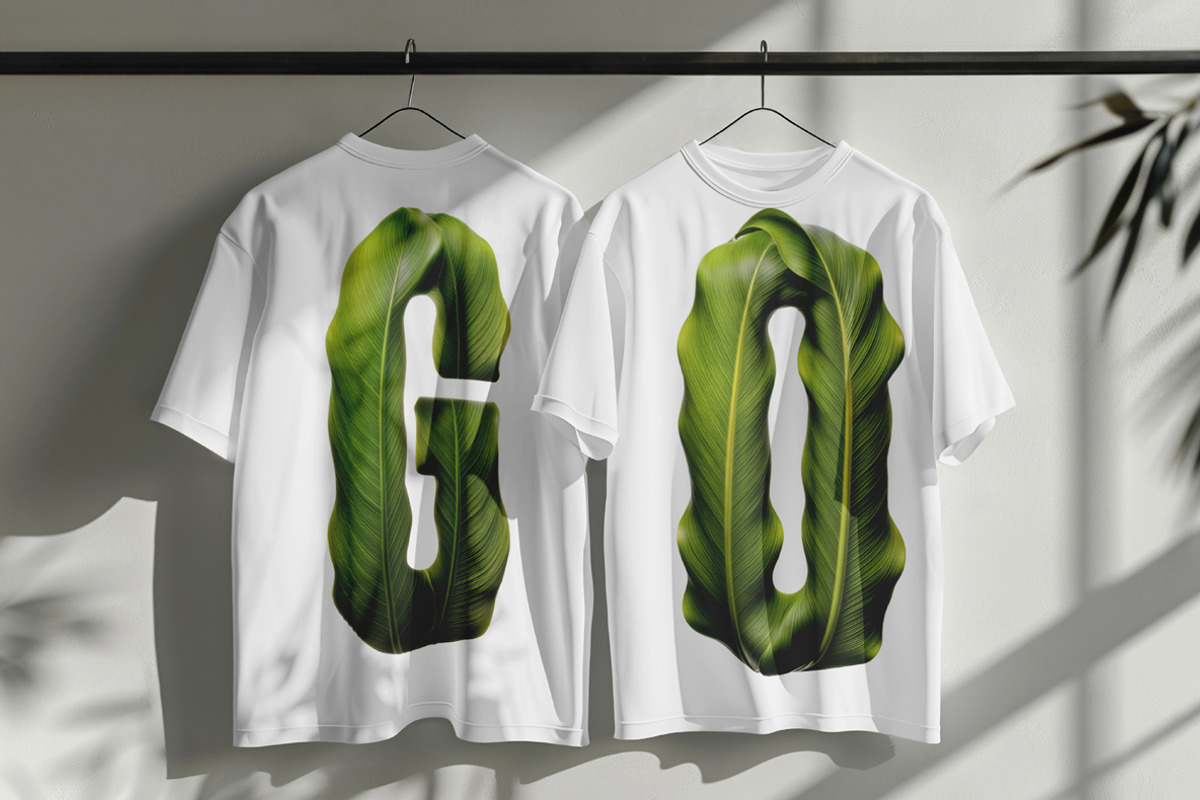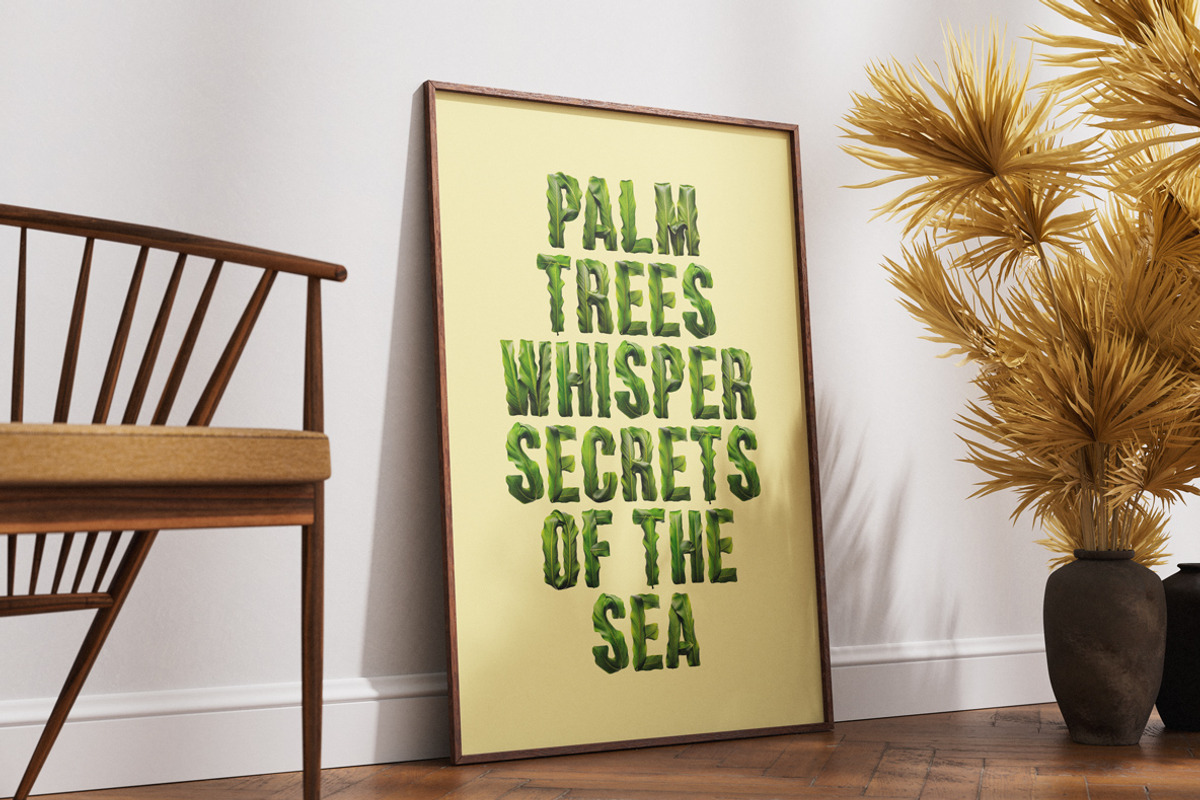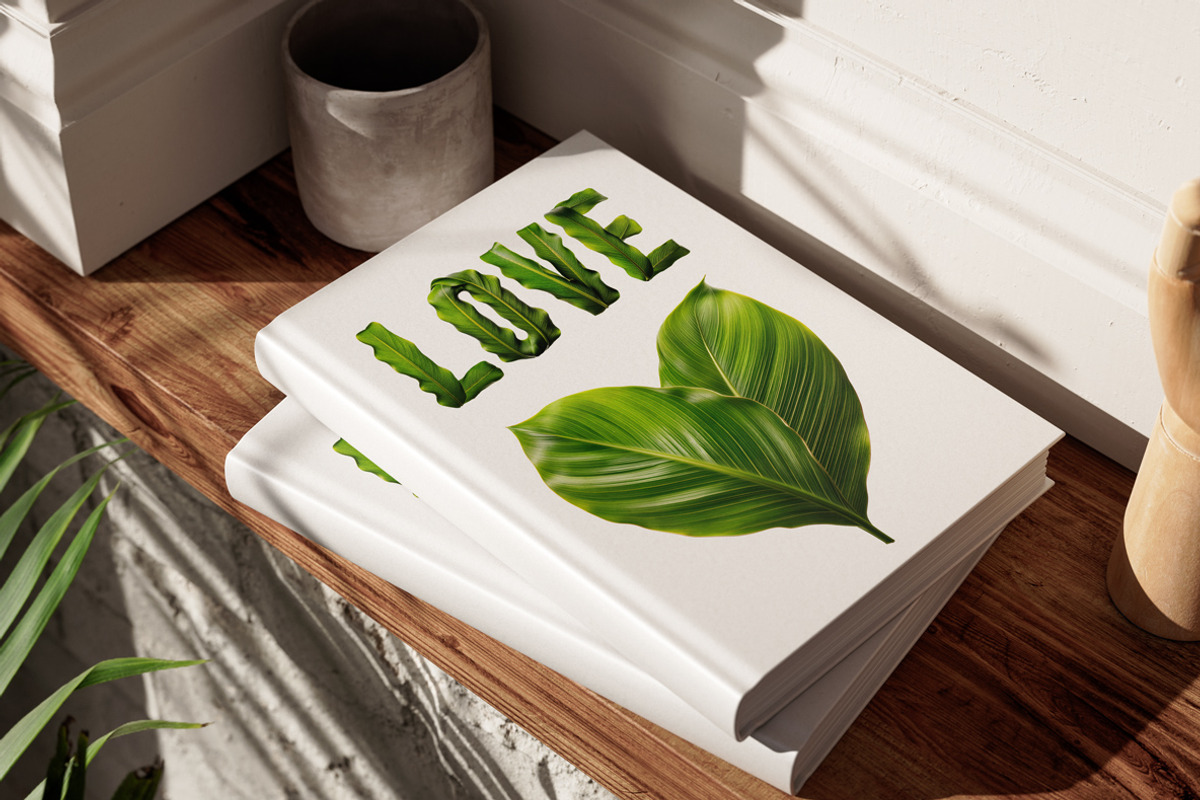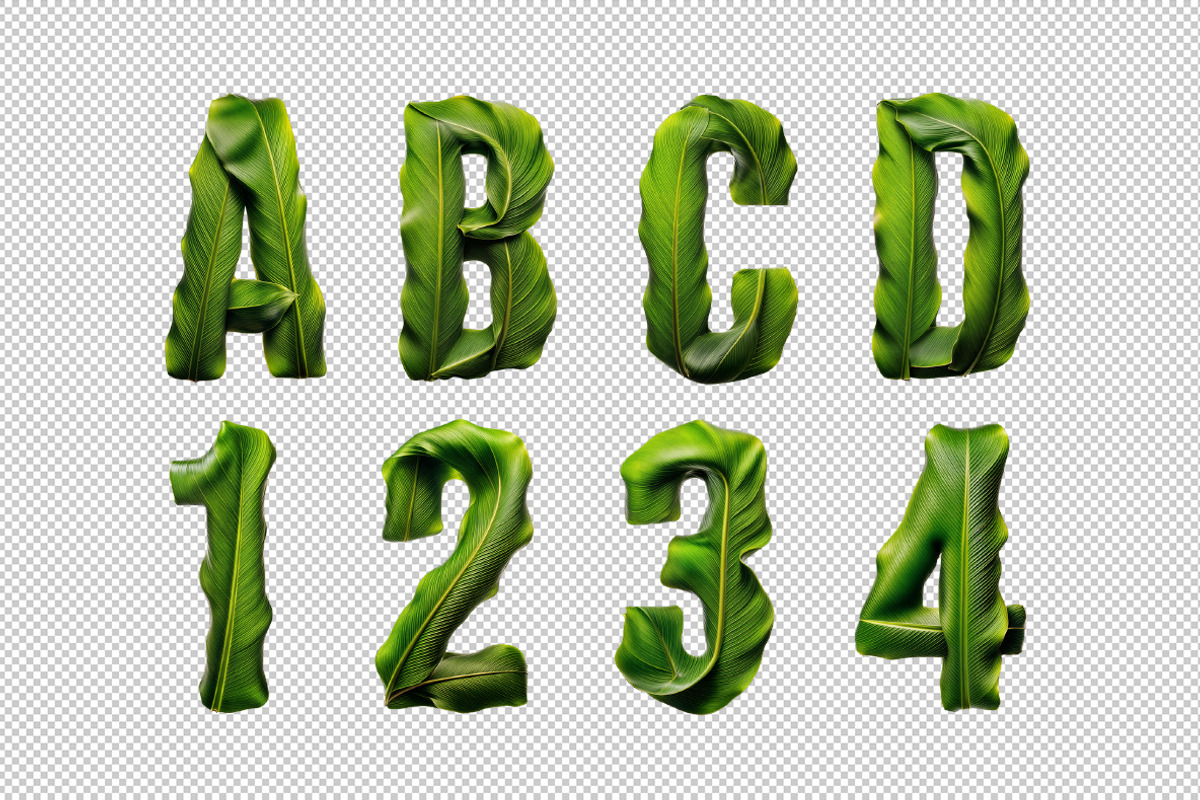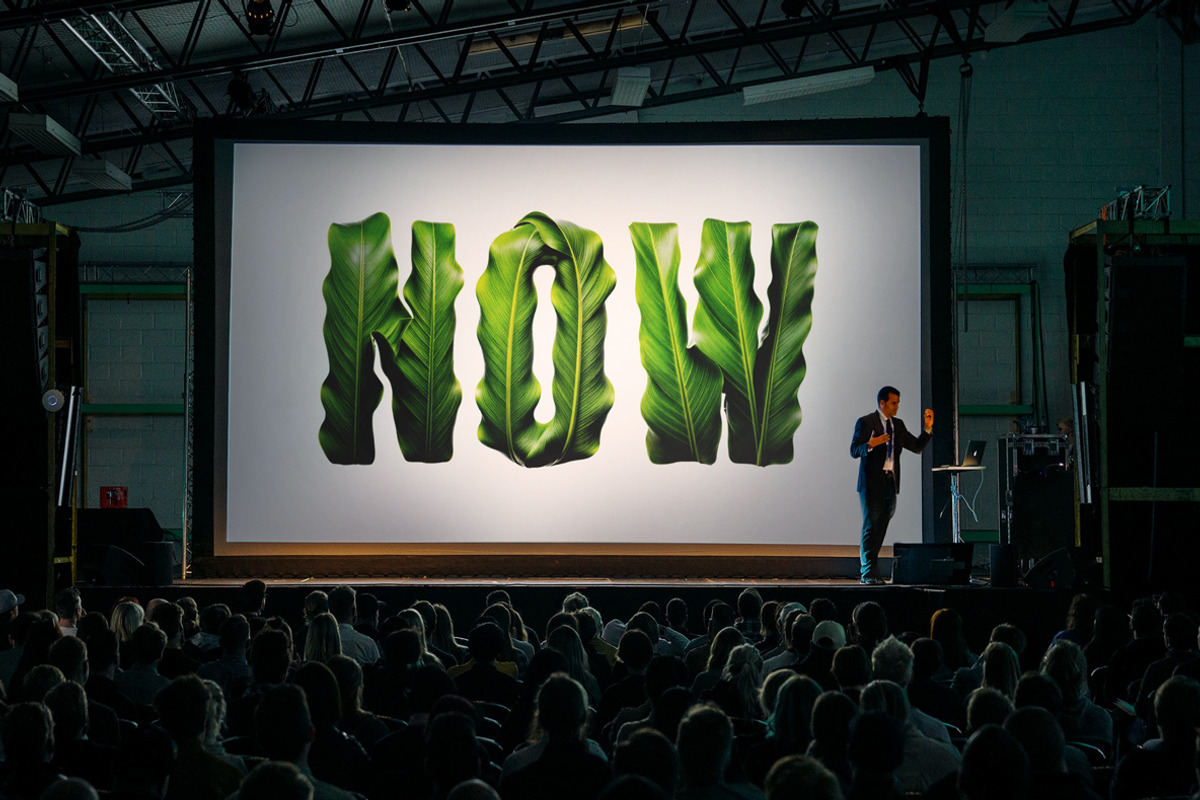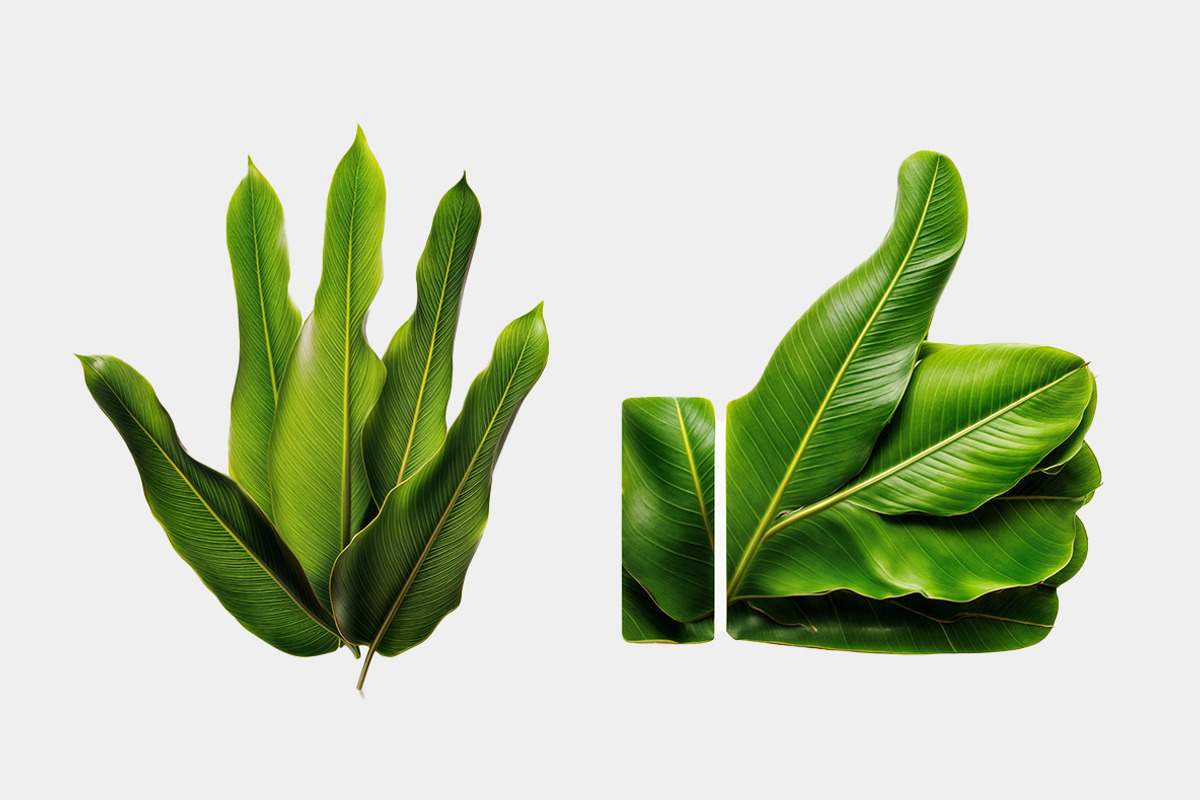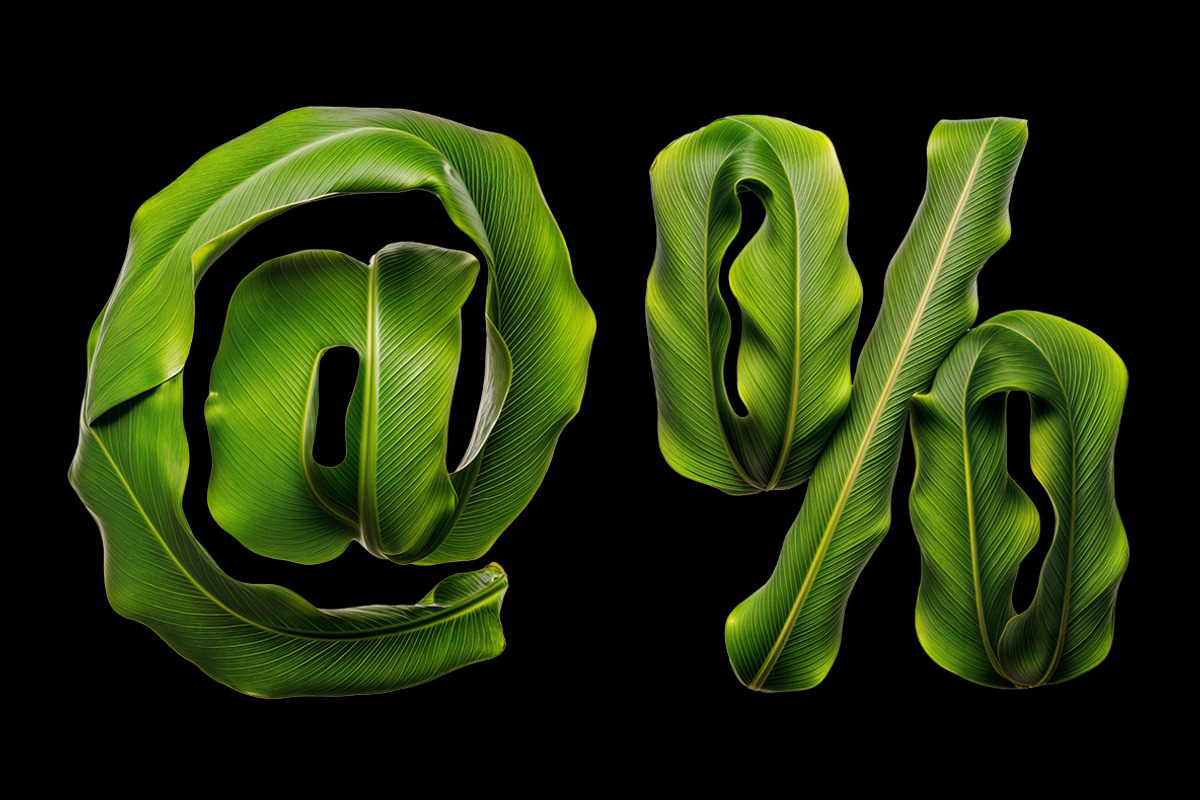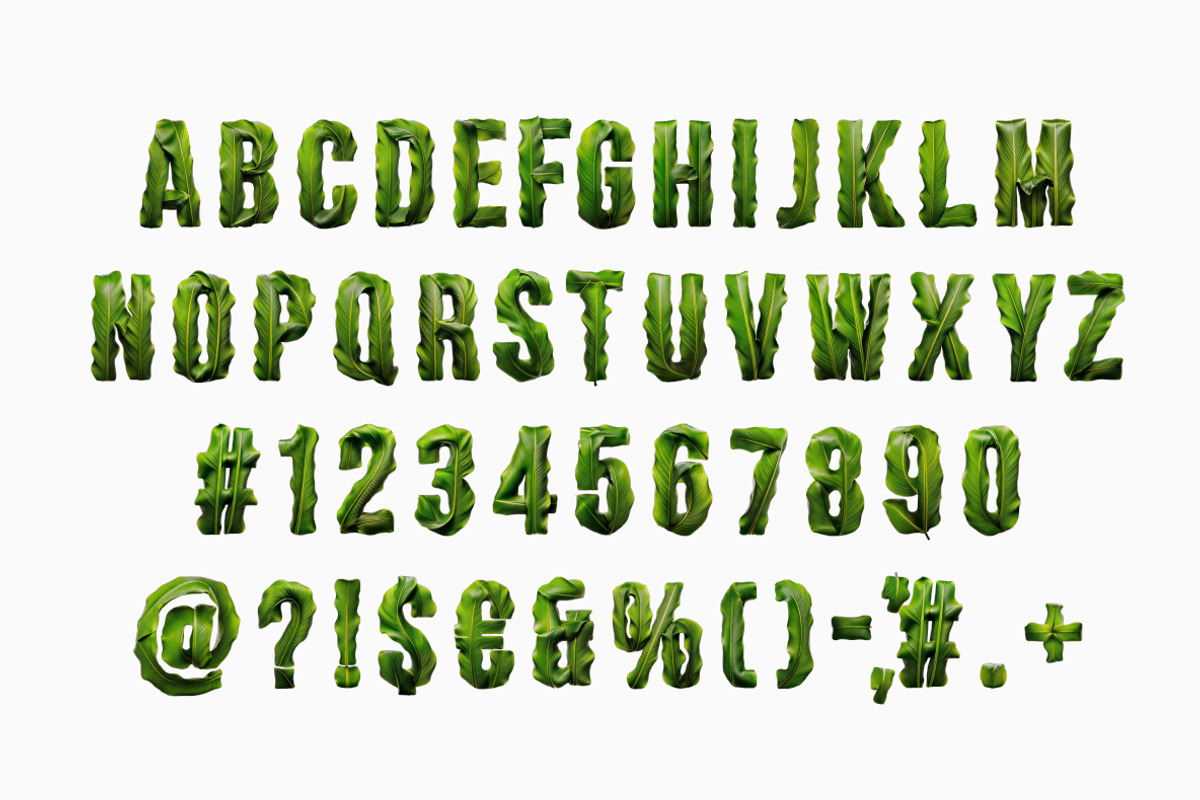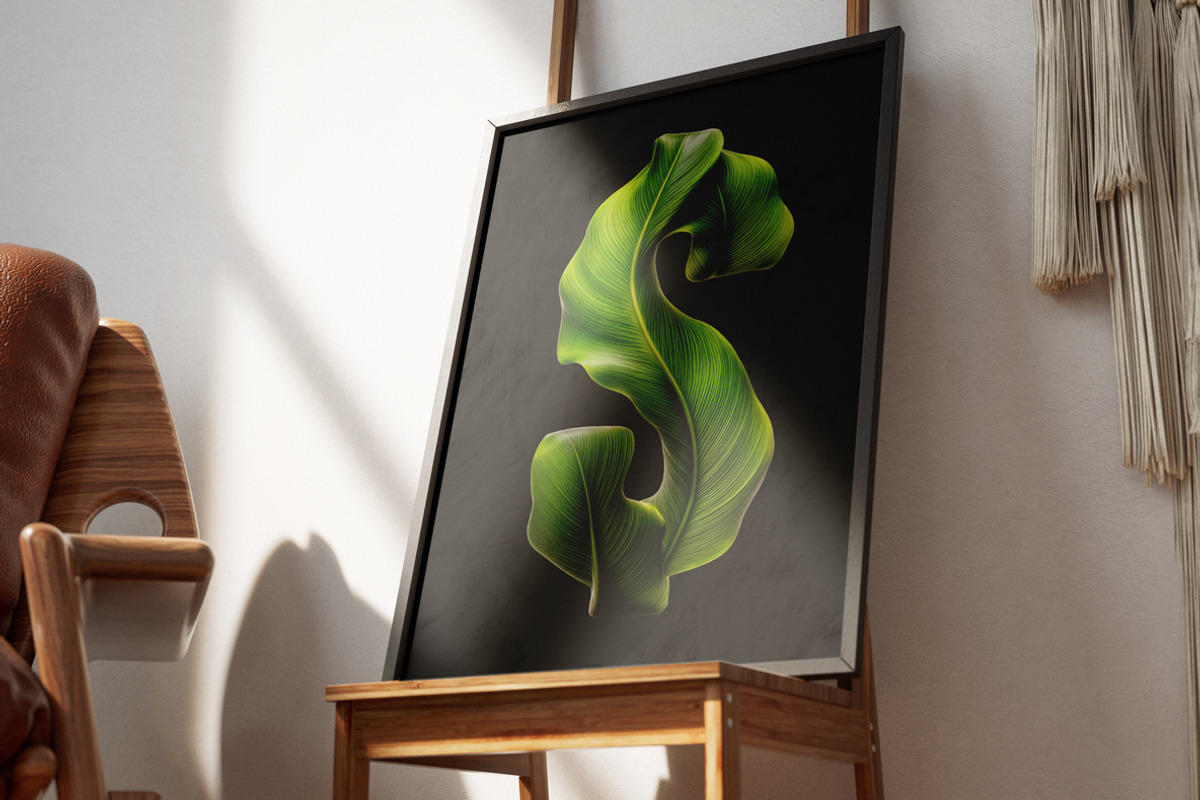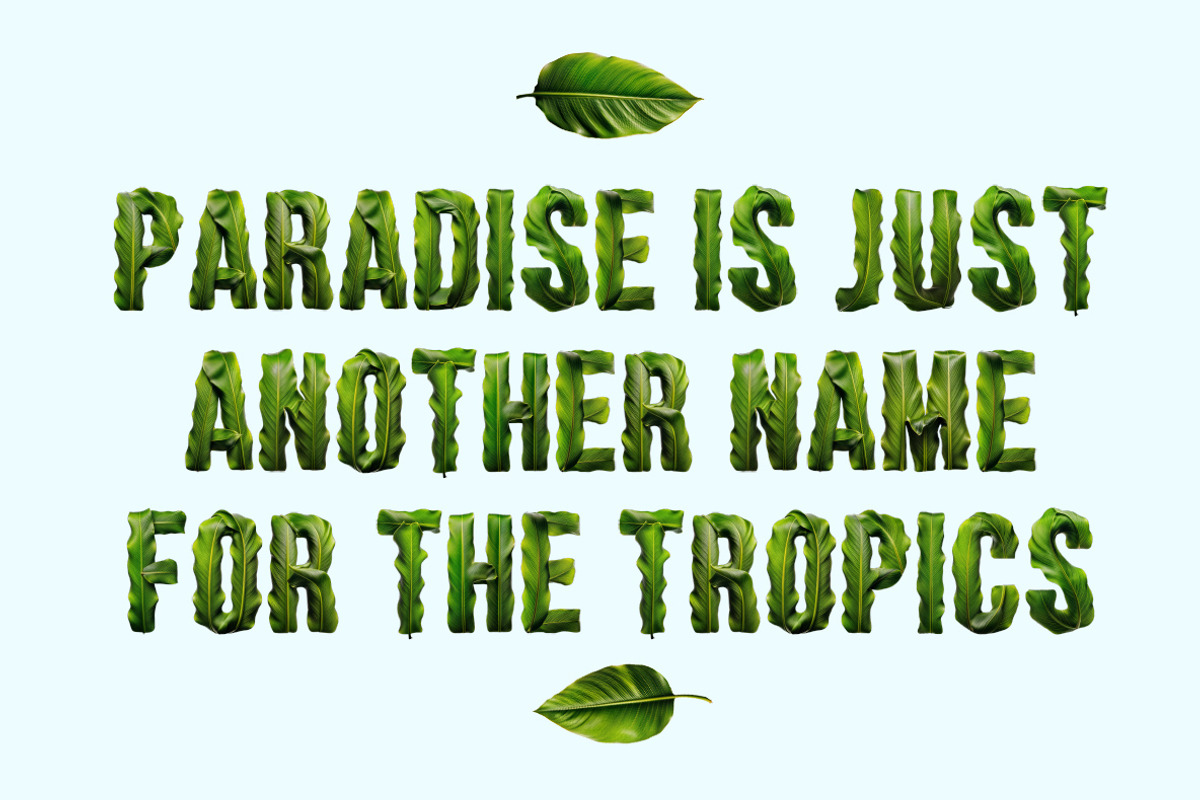
Tropical Leaves Font
Wild and untamed, the Tropical Leaves Font is a jungle party where letters sprout from lush palm, banana, and monstera leaves! Each character is a mini rainforest, bursting with exotic greenery and botanical vibes. Imagine typography so fresh it practically photosynthesizes! Whether you're crafting a tropical paradise invitation, an eco-chic brand, or just want your words to feel like they just got back from vacation, this tropical-inspired font is pure leafy perfection. It’s not just a font—it’s a rainforest adventure, a foliage fiesta, and the ultimate typography getaway. Warning: May cause an irresistible urge to sip coconut water. 🌿🌴
A high definition OpenType Font. Contains uppercase characters, numerals and basic punctuation. (Draw height roughly 800 pixels). All letters and glyphs that comprises this font you can see on the preview.